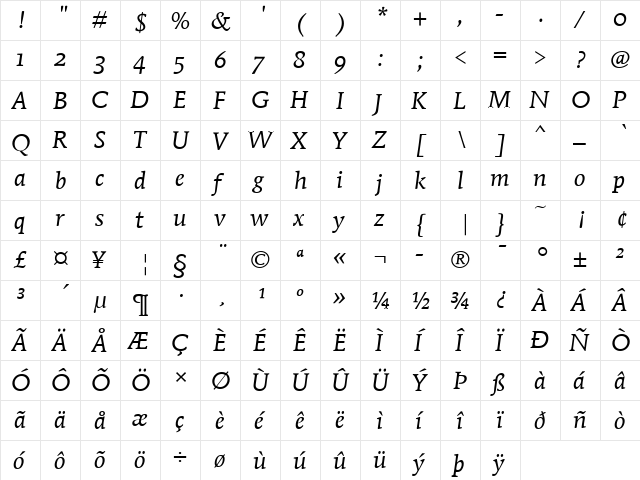
Mendoza Roman ITC Roman Book Italic
Design Context for Mendoza Roman ITC Typeface
Mendoza Roman ITC is a composed and adaptable typeface that performs quietly and consistently across a wide range of design contexts. Its italic angle brings a sense of urgency and motion to the letterforms.
Pro Tip: Try Mendoza Roman ITC for annotation and caption copy alongside an upright companion — the contrast in angle creates a dynamic but ordered typographic system.